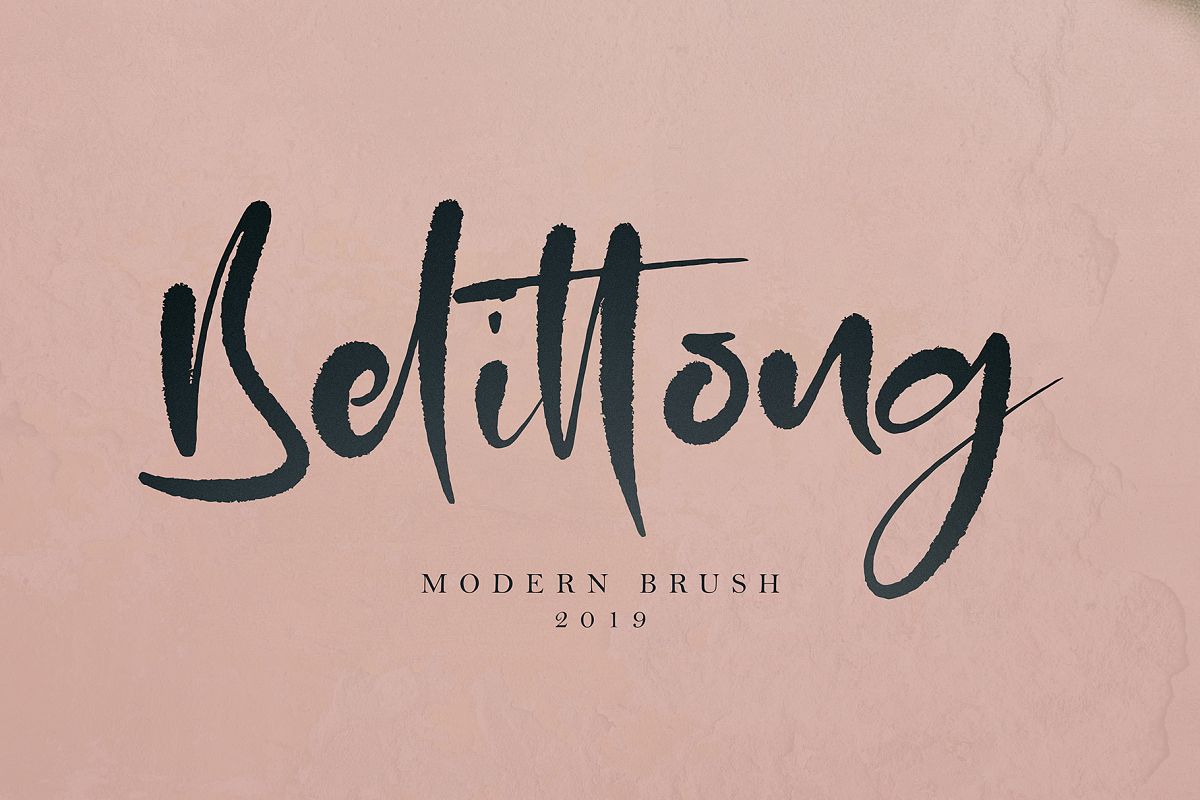
Belittong
Belittong font with new style  handwritten, this font will perfect for many different project ex: quotes, logo, blog header, poster, banding, fashion, apparel, letter, invitation, stationery, etc...